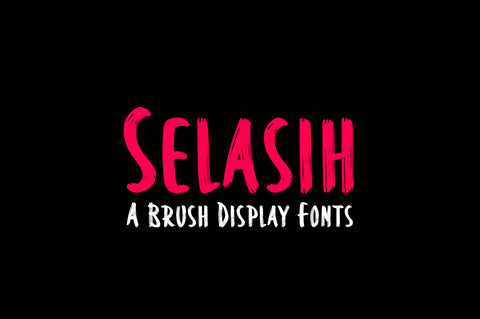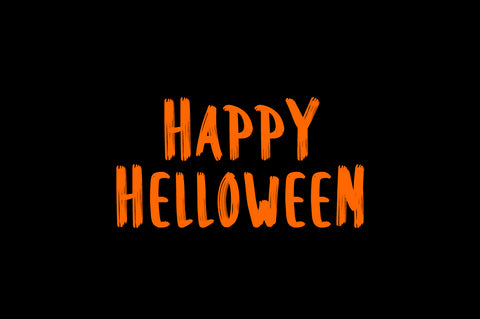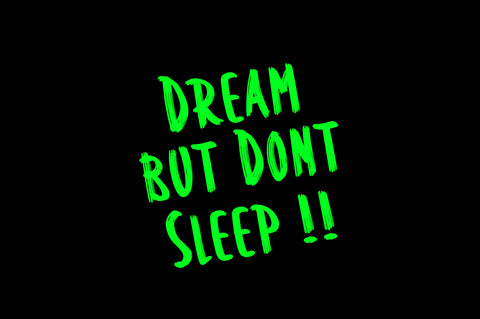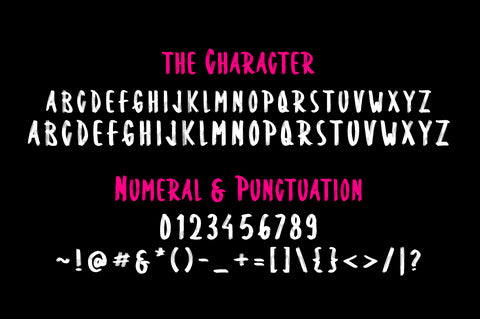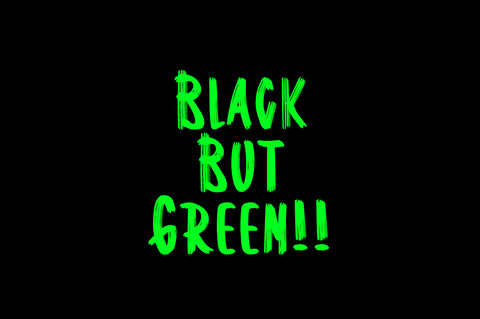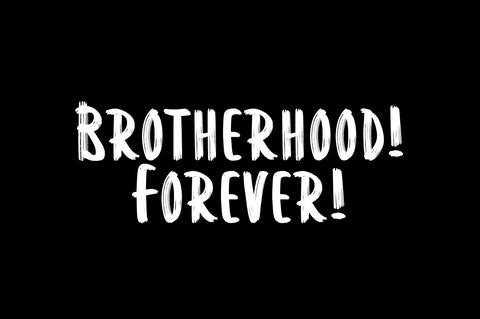
Selasih - A Brush Fonts
Basil is a display font with original brush style. This font is very unique. Perfect for stickers, t-shirts, posters, book covers, movie titles, logos, and more.